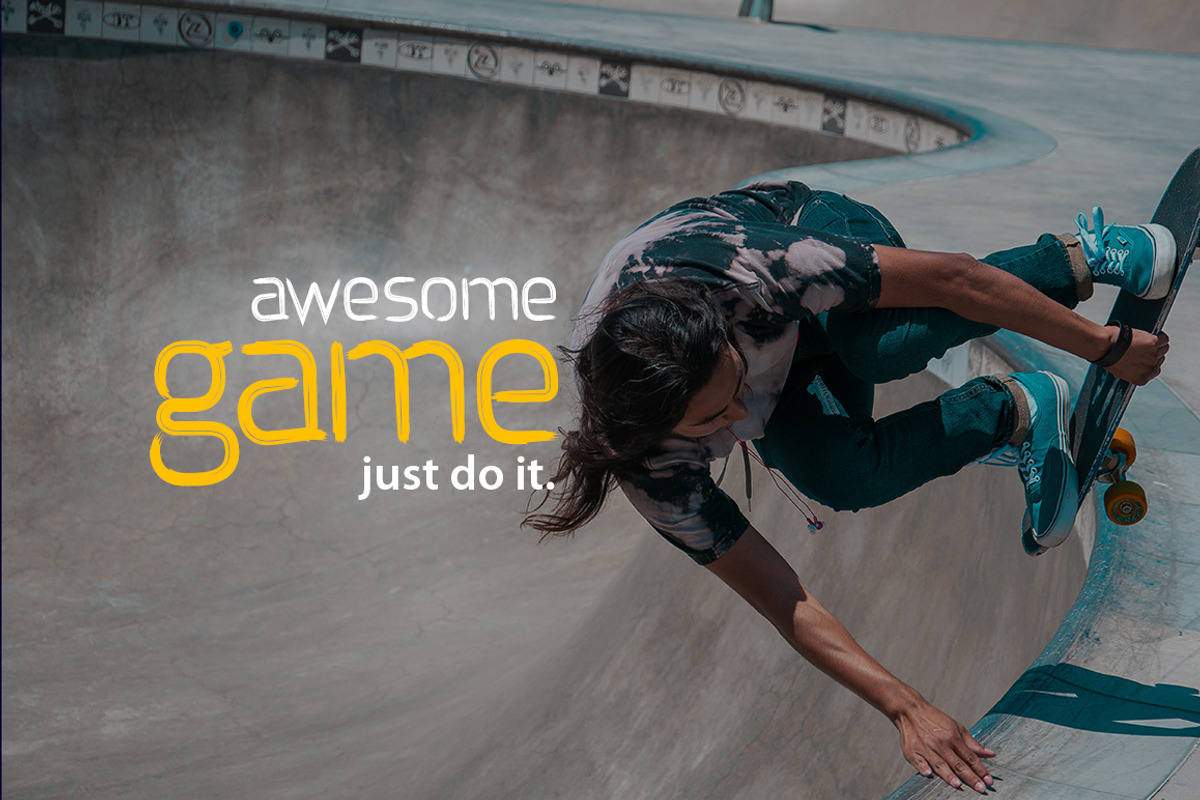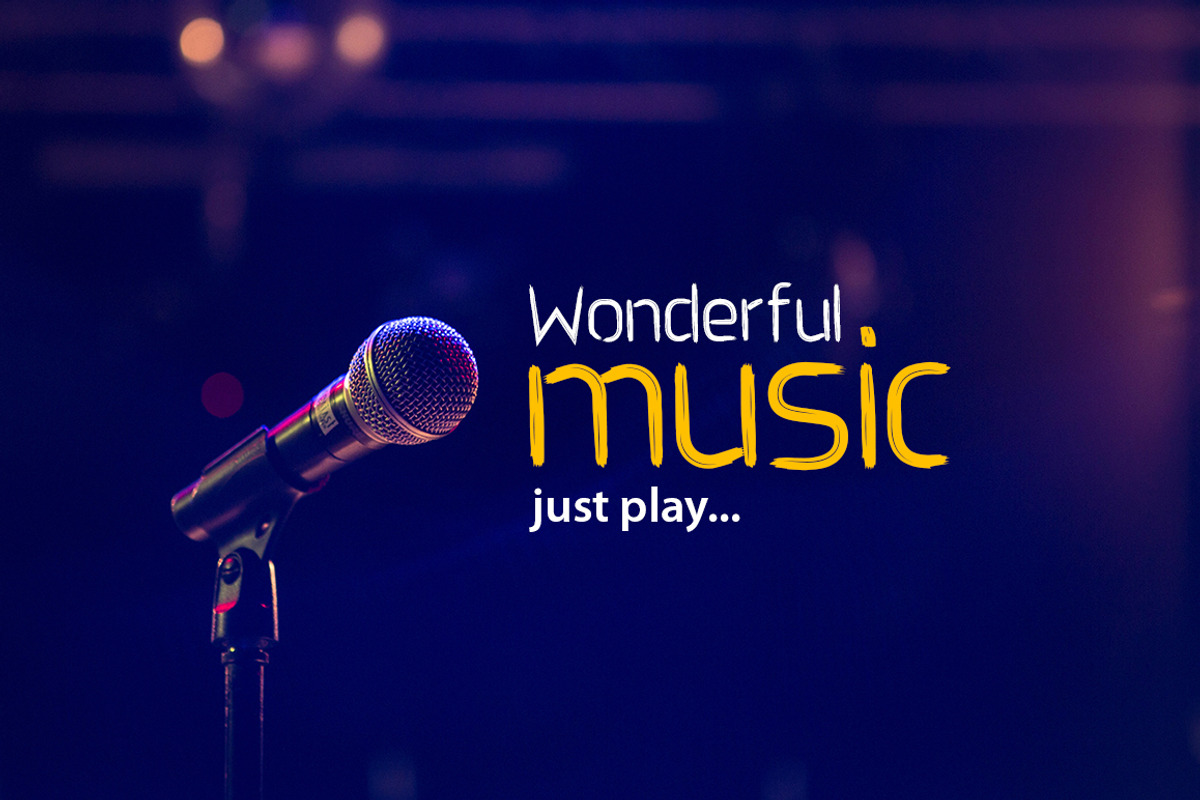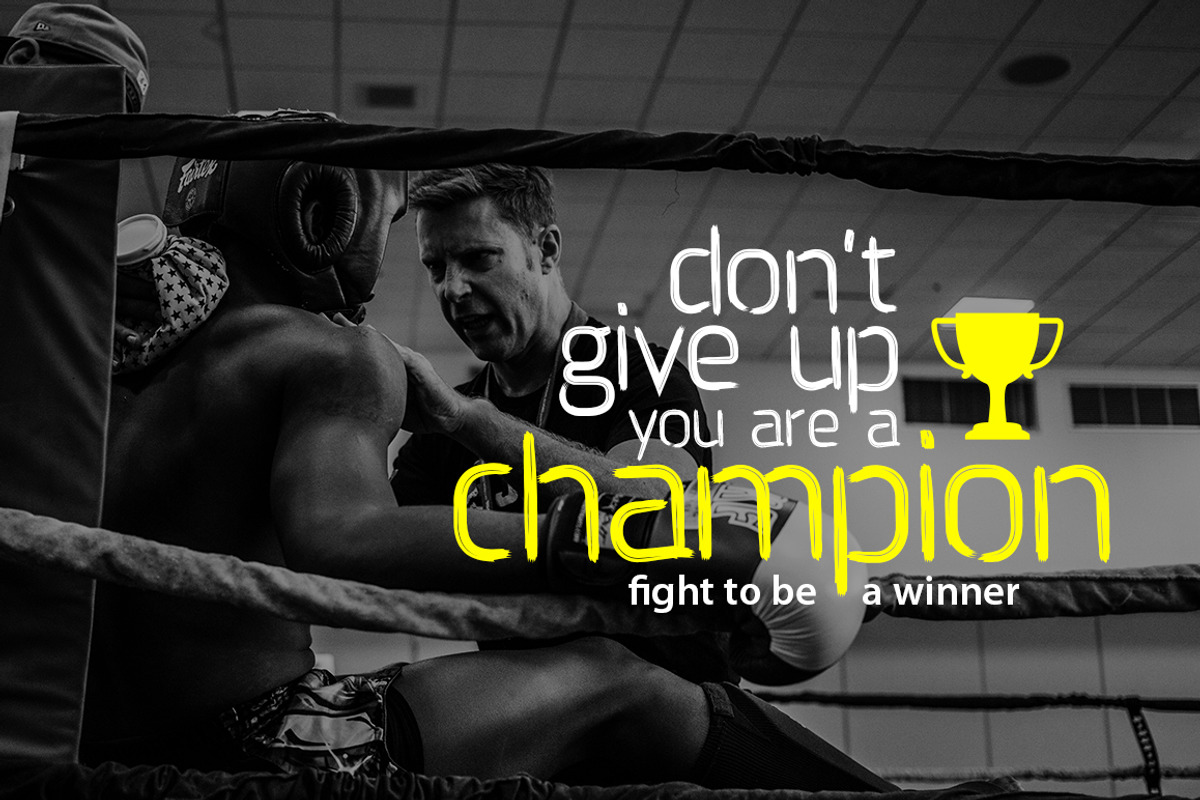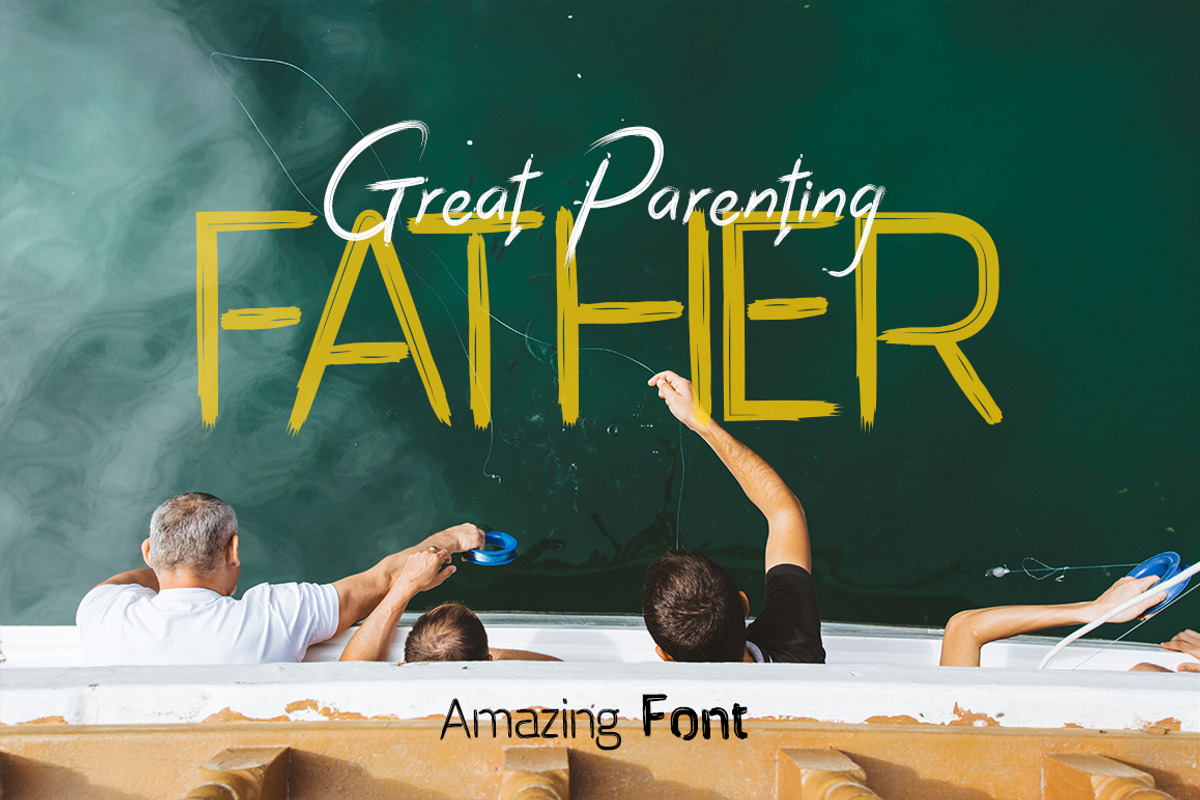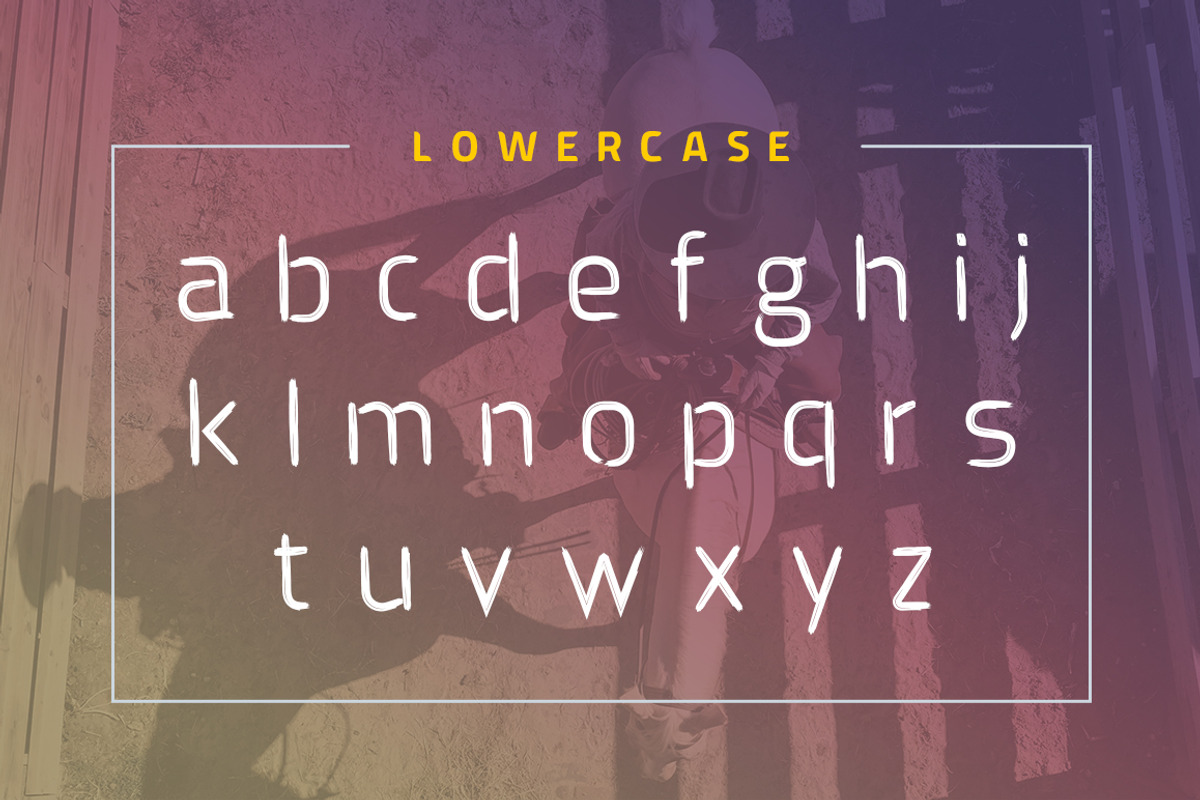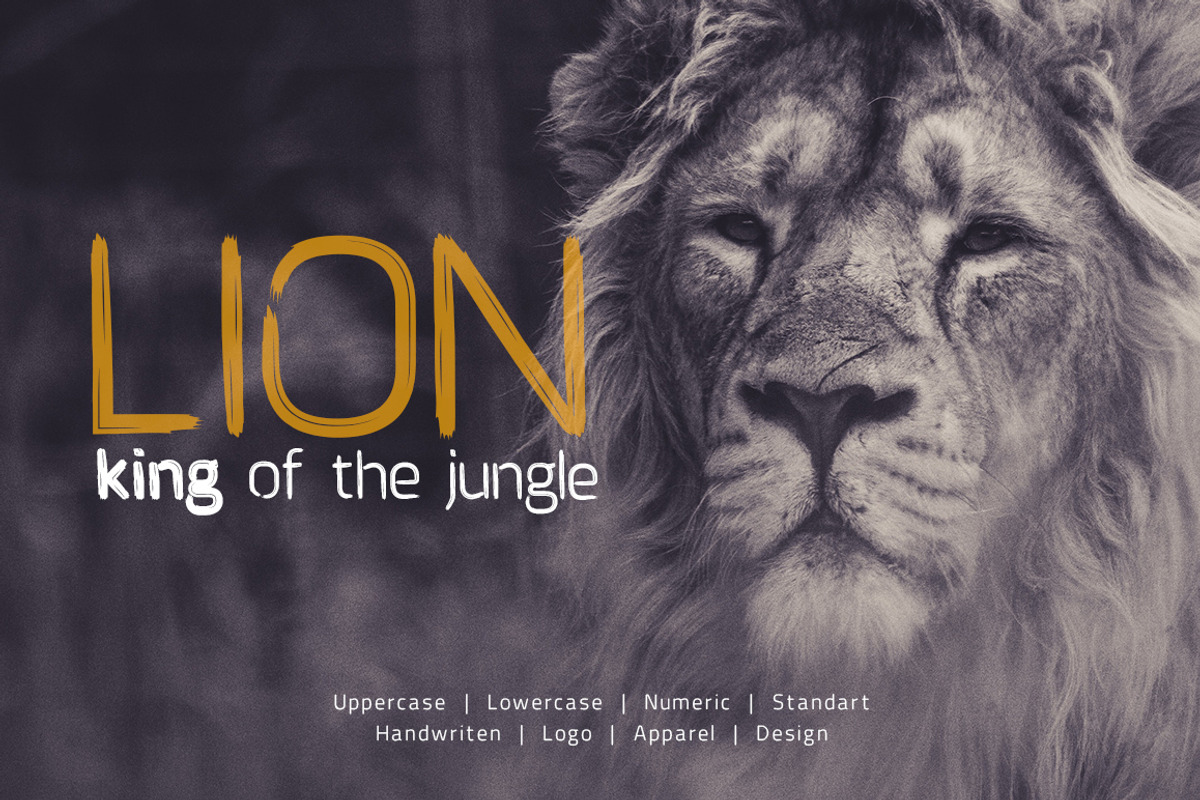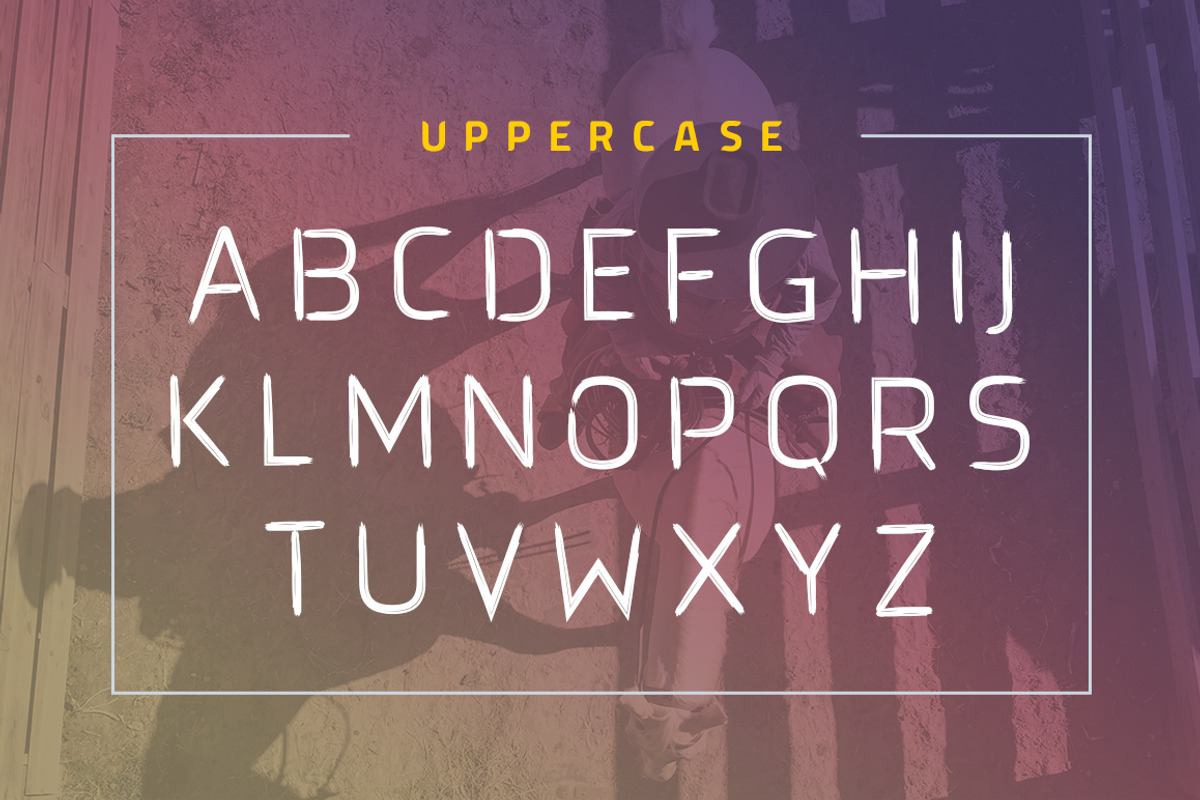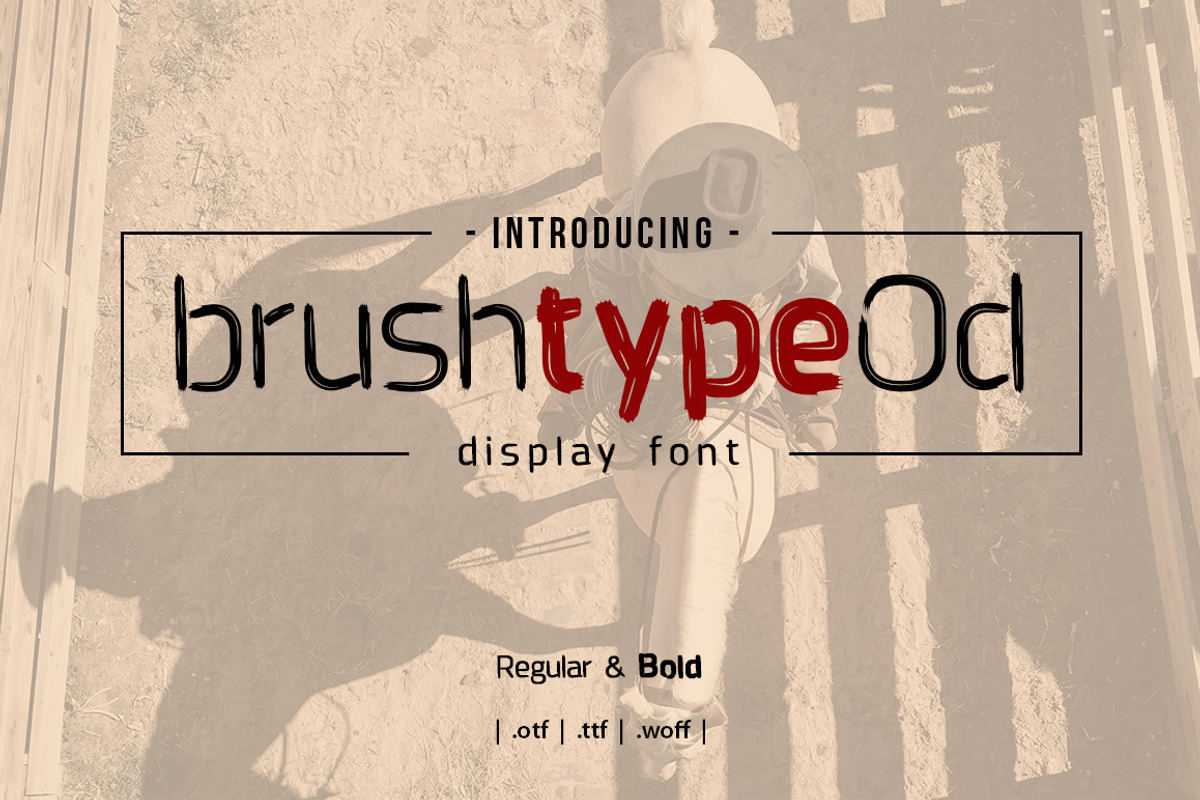
Brushtype Od Font
Brushtype Od font very suitable for poster, for logo, music cover, clothing, and many many cool design projects. Brushtype Od font is uppercase and lowercas. Numeric and standart font.
- Brushtype Od font is uppercase and lowercas.
Brushtype Od Font by yantodesign fits naturally into Branding, posters, packaging, typography.